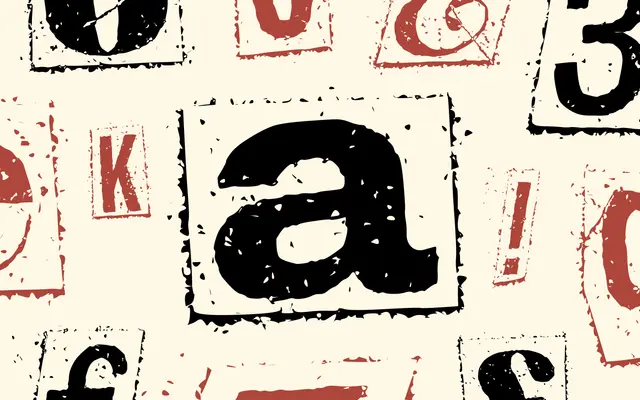
Dark London
Dalton Maag · Maria Fontenelle · 2025
Dark London specimen from Dalton Maag
A distressed cut-out display face by Maria Fontenelle, taking Bankside Sans and Serif into ransom note territory with a Shift variable axis.
A display face by Maria Fontenelle that pushes the Bankside Sans and Serif system into distressed, cut-out territory close to a ransom note. A Shift variable axis moves the letterforms from Normal to Shifted, letting designers tune how aggressive the texture feels. Reach for it on music, fashion and counter-cultural work that wants a darker, hand-cut voice without losing typographic discipline.
Dalton Maag describe Dark London as a striking display typeface with a cut-out, distressed, grungy look that borders on a ransom note style, taking Bankside Sans and Bankside Serif in a darker direction.
Shift: Normal to Shifted